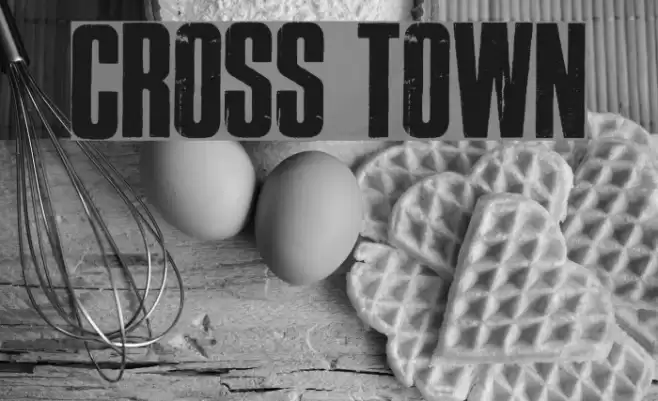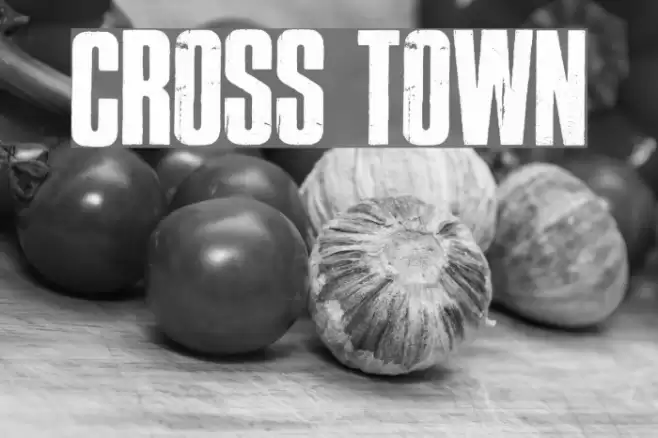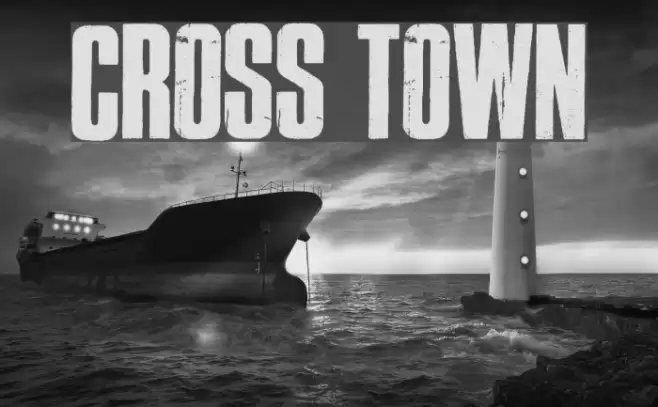
Cross Town Font
Cross Town Description
This font features a bold, distressed style with a rugged texture that gives it a vintage, worn appearance. The uppercase letters are blocky and robust, conveying a sense of strength and impact. The texture adds a gritty, urban feel, making it ideal for designs that require a touch of edginess. The characters are evenly spaced, ensuring readability despite the distressed effect. This font is perfect for projects that aim to capture an industrial or retro aesthetic, such as posters, album covers, or branding for products that want to evoke a sense of nostalgia or toughness.
A bold, distressed font with a rugged, vintage texture from Distorted Eroded fonts.
- Proposed Projects: Ideal for posters, album covers, vintage branding, and industrial-themed designs.
- Overall Style: Vintage